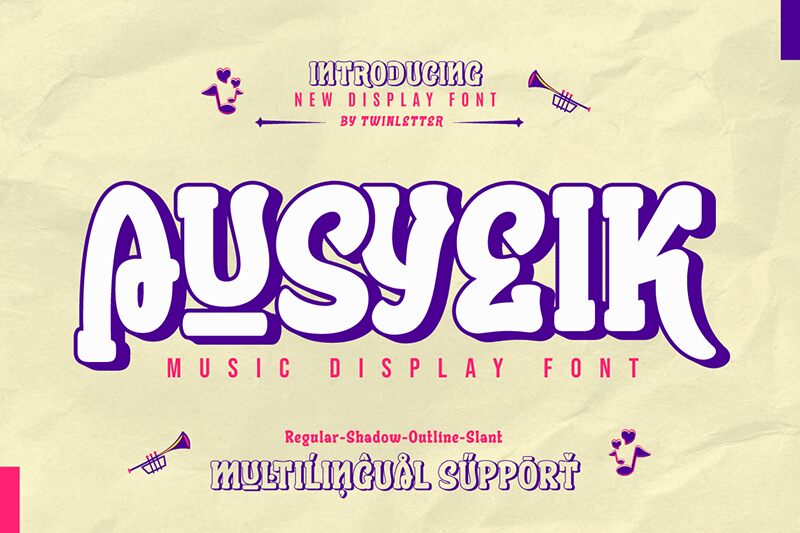
Ausyeik font by Twinletter welcomes its readers with a bold yet whimsical demeanor. This free display font features uniquely stylized characters that add an artistic touch to each word. Its chunky appearance with rounded edges brings to mind fonts used in logos and ads in the 80s lending a fun retro feel.
Ausyeik will look stunning on store signs, book covers, ad posters, billboards, greeting cards various packaging designs, and business cards among many other printed materials. The digital realm will equally benefit from it whether it’s blog posts, websites, banners or shop fronts. Get it now!